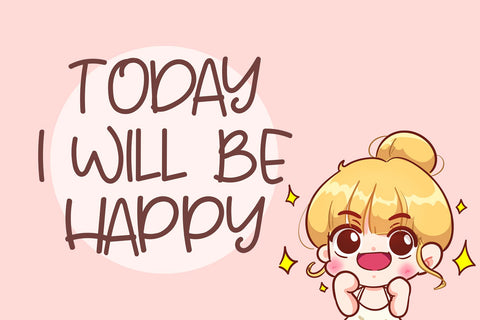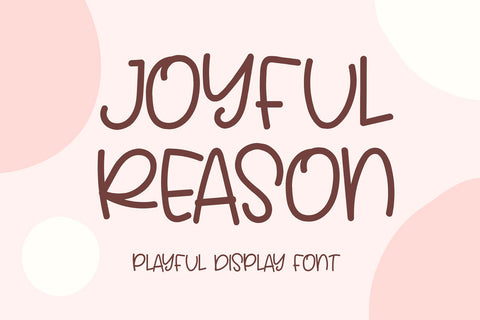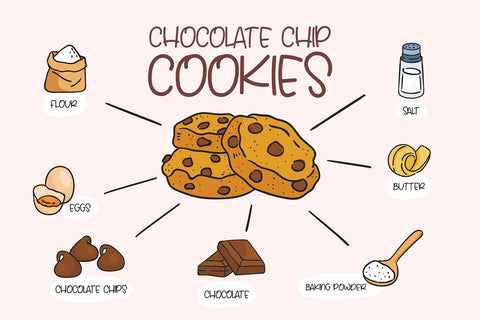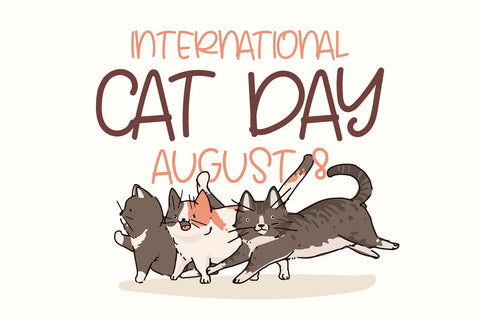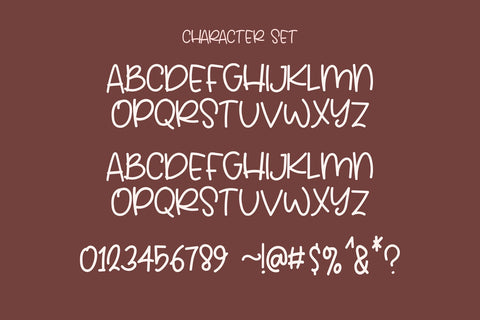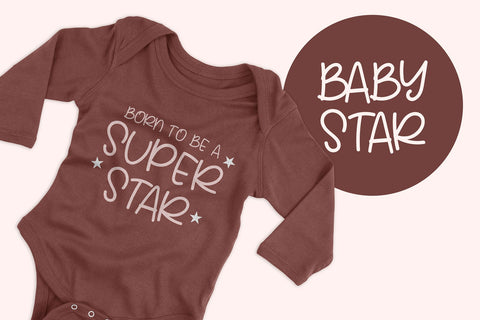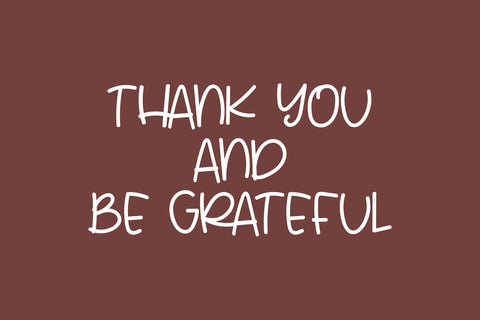
Joyful Reason - Playful Display Font
Joyful Reason is a delightful and charming Display font that exudes a sense of love and cuteness. With its gentle and playful strokes, this font captures the essence of affection and tenderness. Each letter carries a unique and whimsical touch, resembling handwritten notes filled with love. Joyful Reason is perfect for adding a romantic and joyful touch to various design projects, such as greeting cards, invitations, social media posts, and more. Its lovely and cute characteristics make it an ideal choice for expressing heartfelt emotions in a visually appealing way.